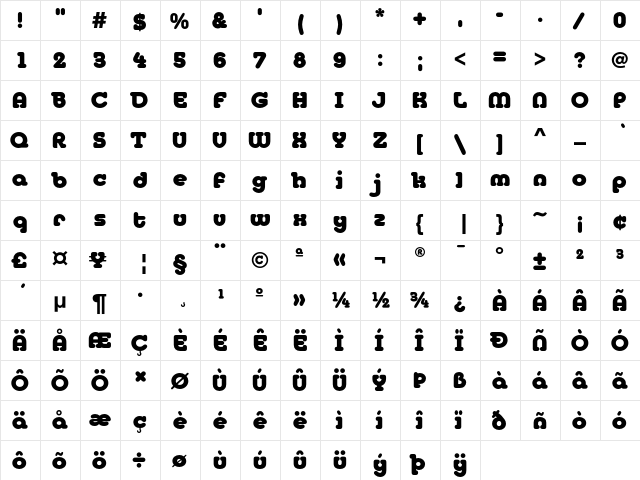
MediaSerifEF ExtraBold
Design Context for MediaSerifEF Typeface
MediaSerifEF brings classic typographic sensibility to the table — its serifs and measured letterforms reflect centuries of print heritage. The heavy weight commands attention and anchors typographic hierarchies.
Pro Tip: Set MediaSerifEF with slightly loose tracking in headlines to let each letterform's detail read clearly at display sizes.